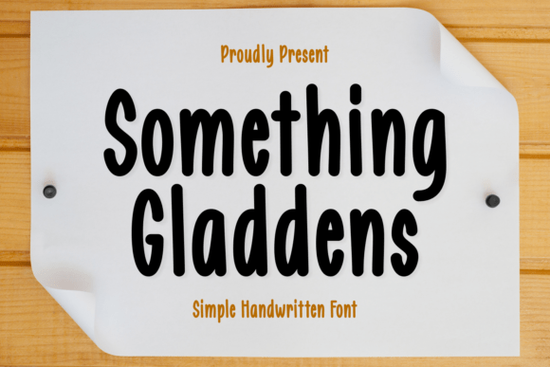
Looking for a handwritten script font that works across wedding invitations, branding projects, and Cricut crafts? Something Gladdens is a stylish typeface that blends romantic curves with a clean retro aesthetic. It's designed for crafters, designers, and anyone who needs a versatile script font that looks polished without feeling stiff.
What Makes Something Gladdens Different from Other Script Fonts?
Most handwritten fonts fall into two camps: too messy or too formal. Something Gladdens sits right in the middle. It has the warmth of hand-lettered text but keeps enough structure to stay readable at different sizes. The subtle curves and balanced spacing give it a nostalgic, slightly retro feel that works well for both modern and vintage-inspired designs.
Unlike overly decorative typefaces, this one doesn't overwhelm your layout. It adds personality without stealing the spotlight from your overall design. If you've used fonts like Smile before, you'll notice Something Gladdens has a similar approachable energy but leans more elegant and romantic.
What Can You Create with This Font?
This font is surprisingly flexible. Here are some practical ways designers and crafters are using it:
- Wedding stationery invitations, save-the-dates, table numbers, and thank-you cards
- SVG files for Cricut and Silhouette cuts cleanly for vinyl decals and heat transfers
- Sublimation projects mugs, tumblers, t-shirts, and tote bags
- Branding and logos especially for boutique shops, bakeries, and lifestyle brands
- Posters and wall art quotes, nursery decor, and seasonal prints
- Apparel design the curves look great on both fitted and oversized garments
- Banners and social media graphics adds a warm, personal touch to headers and promotions
Does It Support Multiple Languages?
Yes, and this is where it really stands out. Something Gladdens supports multilingual characters, including Eastern European dialects. If you sell print-on-demand products internationally or create designs for clients in different regions, this saves you the headache of switching fonts for special characters.
Not every script font handles extended character sets well. Some lose their shape or spacing when you add accented letters. This typeface keeps its consistency across languages, which is a practical advantage for global sellers.
How Does It Work for Cricut and Cutting Machines?
The font cuts cleanly in SVG format, which matters if you're using Cricut Design Space or Silhouette Studio. Thin script fonts sometimes cause issues with weeding vinyl because the strokes are too delicate. Something Gladdens has enough weight in its letterforms to avoid that problem while still looking graceful.
For sublimation printing, the smooth curves reproduce well on coated surfaces. You won't get jagged edges or pixelation, even at larger sizes. This makes it a reliable pick for mug wraps, t-shirt transfers, and other sublimation blanks.
What Font Pairings Work Well with It?
Pairing script fonts with the right supporting typeface can make or break a design. Something Gladdens works well with:
- Clean sans-serifs for body text and smaller details
- Simple serif fonts if you want a slightly more classic look
- Other script fonts with different weights like Masterline Calligraphy for a layered, calligraphy-style effect
For bold, empowering quotes or feminist-themed merchandise, Strong Girl pairs nicely as a contrasting display font. And if you need a smooth, flowing script for a different project, Ibas is another option worth checking out.
Is It Worth Adding to Your Font Library?
If you regularly design wedding materials, craft products, or branded content with a romantic or whimsical tone, Something Gladdens earns its spot. It covers a wide range of uses without needing heavy modifications, and the multilingual support makes it practical for commercial work.
For small business owners creating their own marketing materials, it's the kind of font that looks professional without requiring a designer's eye to make it work. Just keep your pairings simple and let the script do its job.
Quick Checklist Before You Buy
- ✅ Check that your cutting software supports OTF or TTF formats
- ✅ Test the font with your specific sublimation blanks before committing to a large batch
- ✅ Pair it with a simple sans-serif to keep designs balanced and readable
- ✅ Try it at multiple sizes it holds up well from small captions to large display text
Tip: Before starting a new project, type out your full text in the font first. This helps you spot any spacing or kerning issues early, especially if your design includes numbers or special characters.